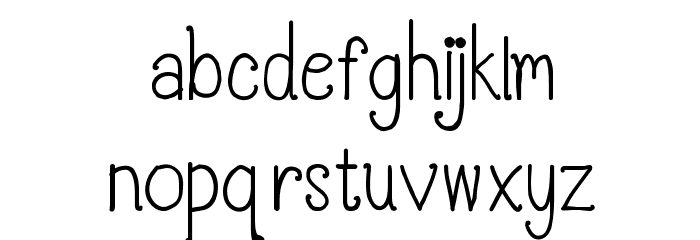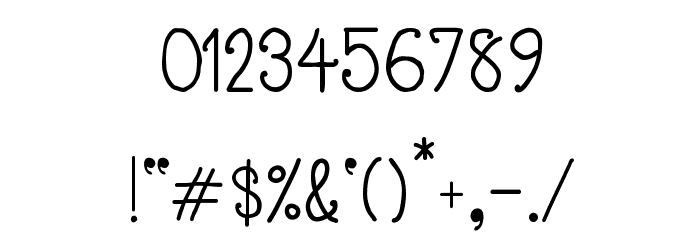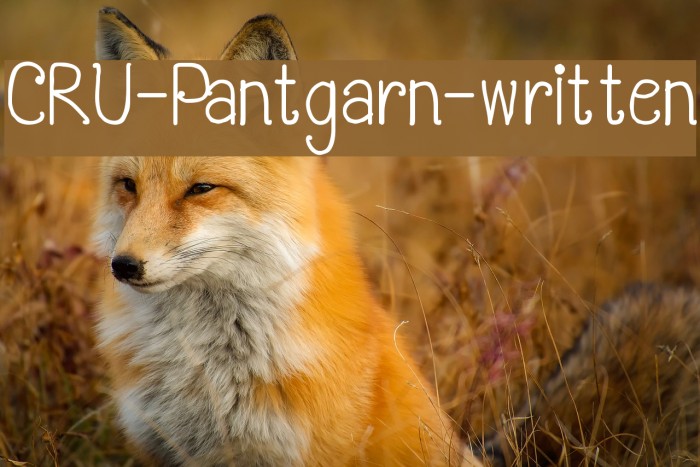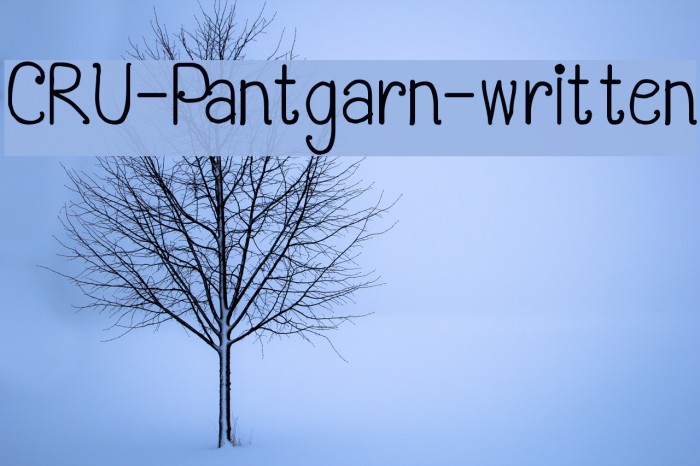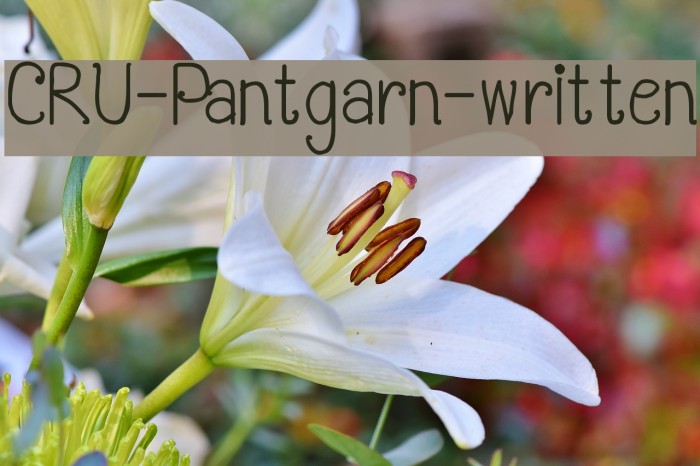
CRU-Pantgarn-written Font
This font features a playful and whimsical design, characterized by its rounded and slightly irregular letterforms. The strokes are consistent in thickness, giving it a uniform appearance. The uppercase letters are bold and prominent, while the lowercase letters have a friendly, approachable feel. The numerals are clear and easy to read, maintaining the playful style of the alphabet. Special characters are well-integrated, adding to the font's versatility. Overall, this font exudes a sense of fun and creativity, making it suitable for various informal and lighthearted applications.
A playful and whimsical font with rounded, consistent strokes and a friendly appearance.
- Proposed Projects: Ideal for children's books, playful branding, greeting cards, and creative projects.
- Overall Style: Playful
- Use Case: Headlines, Logos, Creative projects